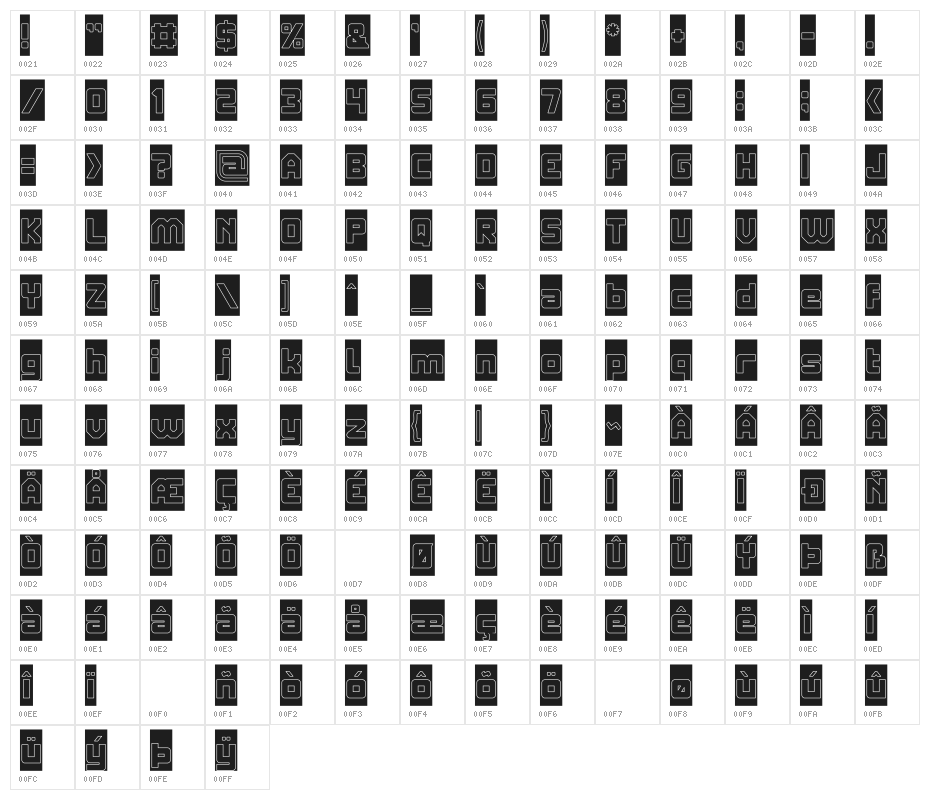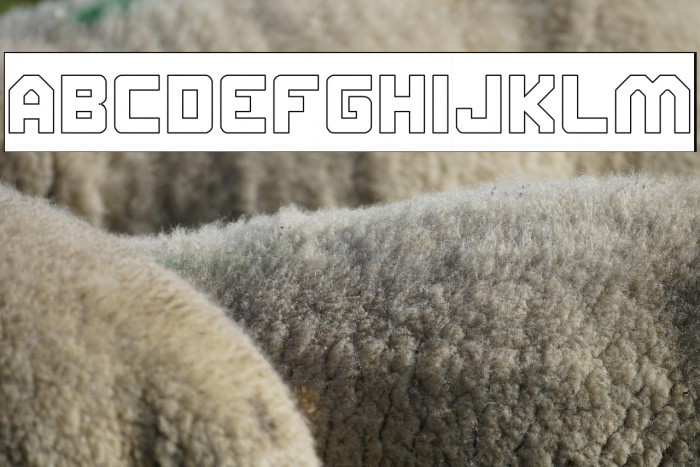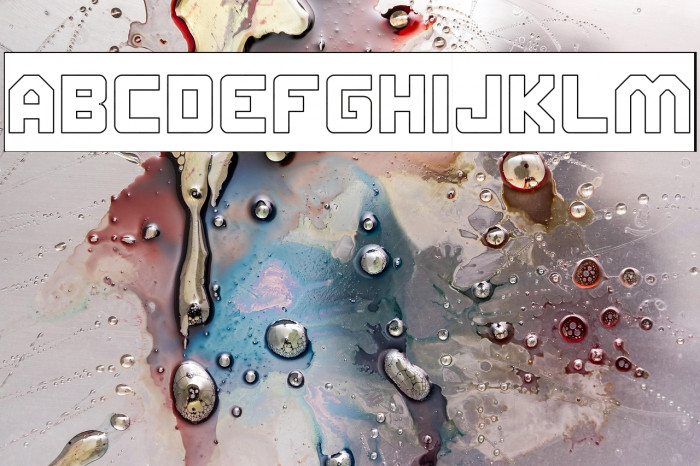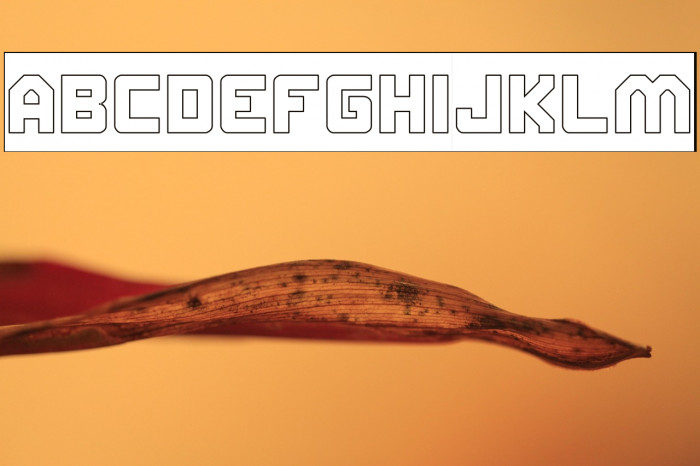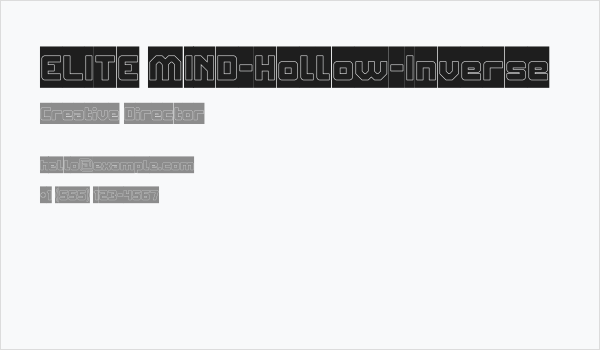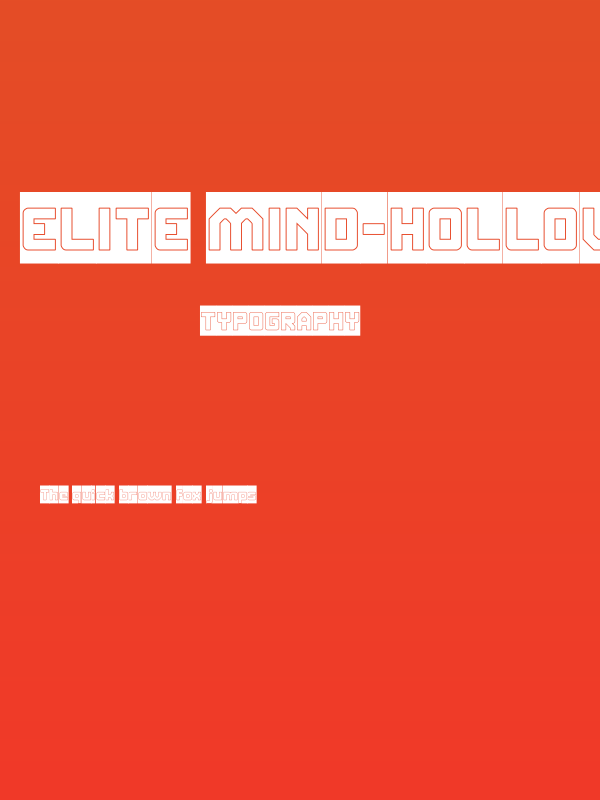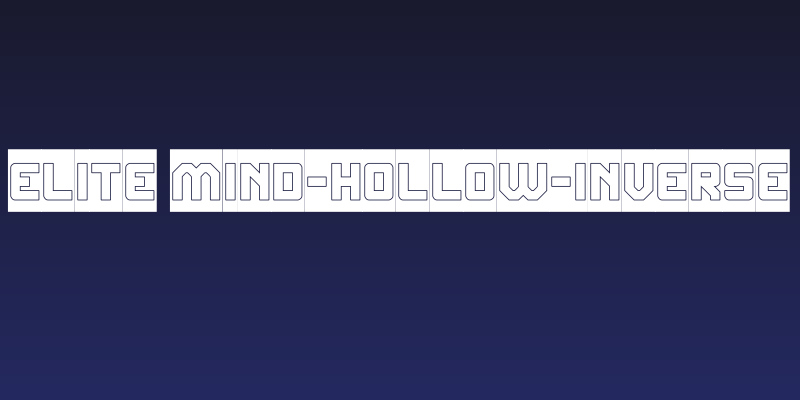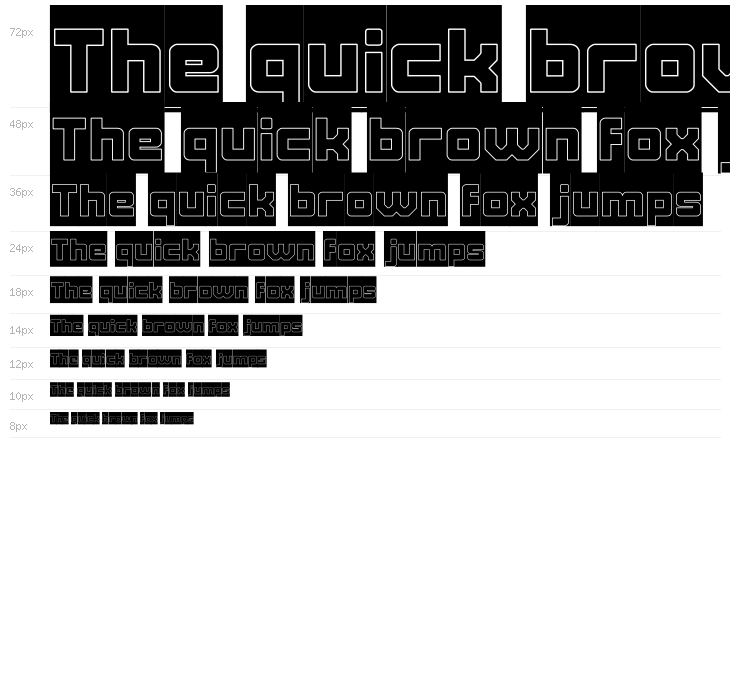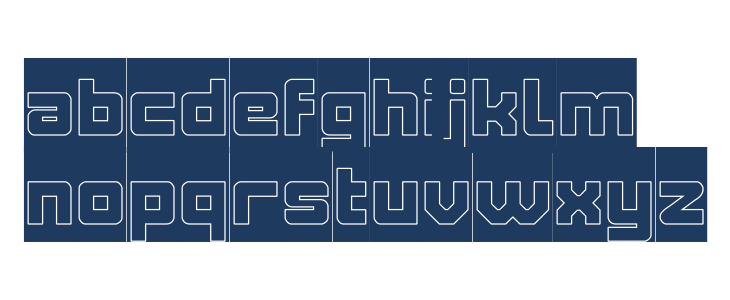
ELITE MIND-Hollow-Inverse Font
ELITE MIND-Hollow-Inverse Description
This font features a bold, geometric design with a hollow, outlined style that gives it a futuristic and modern appearance. The characters are constructed with clean, straight lines and sharp angles, creating a sense of precision and clarity. The uppercase and lowercase letters maintain a consistent width, contributing to a uniform look. The numerals and special characters are designed to match the overall aesthetic, ensuring cohesion across all elements. This font's unique hollow design makes it stand out, ideal for projects that require a distinctive and eye-catching typeface.